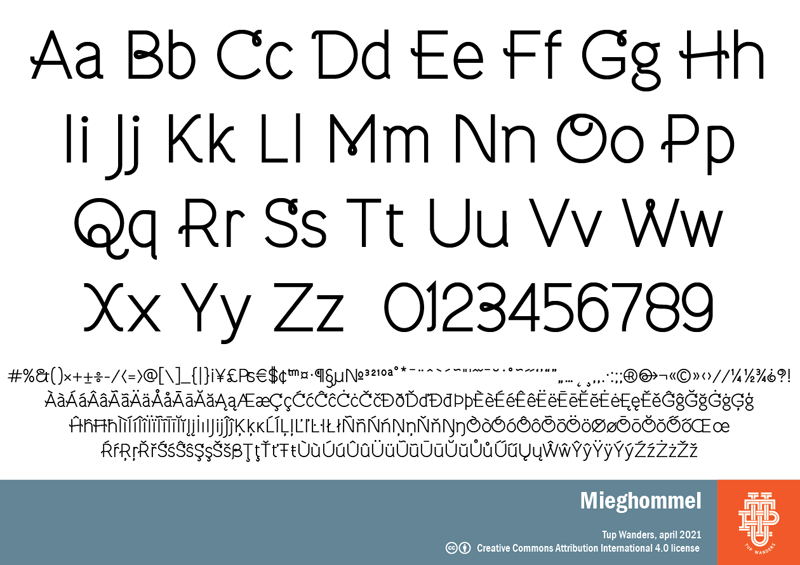
Font name: | Mieghommel |
Author: | Tup Wanders |
Note by Tup Wanders | |
A simple sans variation of my base font that has grown some pig's tails here and there. I don't recommend using ALL CAPS, because it's ugly. (Mieghommel is the word for ant in my home town Groningen.) |